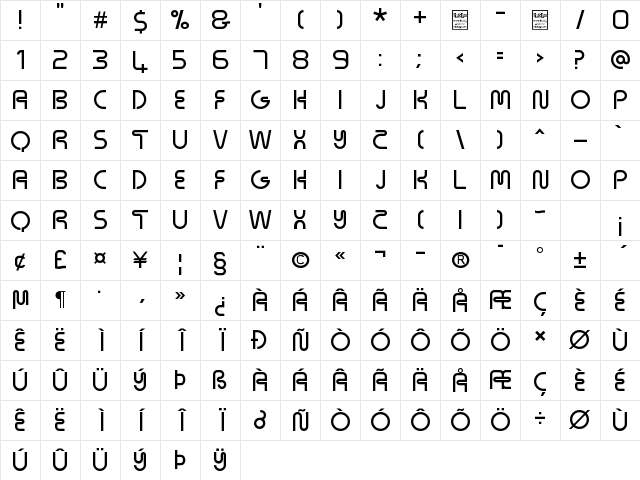
Neons Regular
Foundry: StudioTypo
Design Context for Neons
Neons has a distinctly futuristic character, with geometric precision and clean angles that feel at home in technology, gaming, and sci-fi contexts.
Pro Tip: Try Neons with generous letter-spacing in UI labels and navigation - the geometric forms benefit from room to breathe.